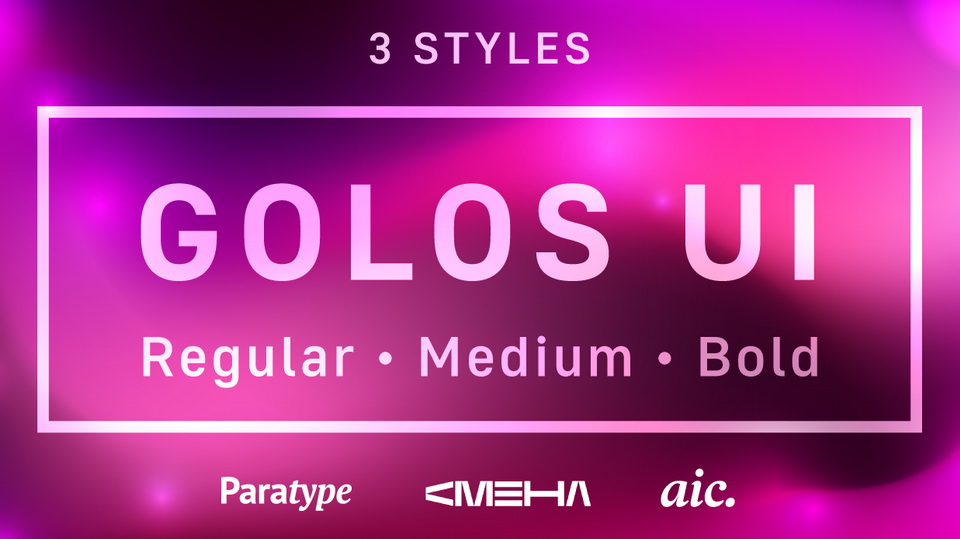
Download Golos UI typeface, an uniwidth sans serif font family in three styles for state and social service websites. Golos UI suits perfectly for interfaces.